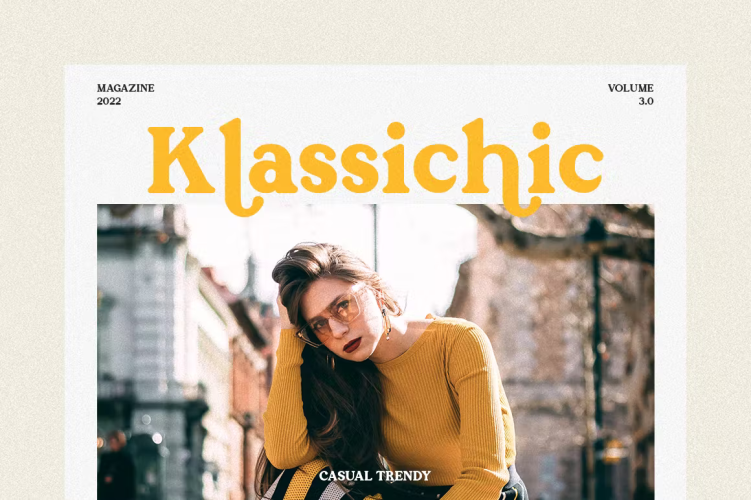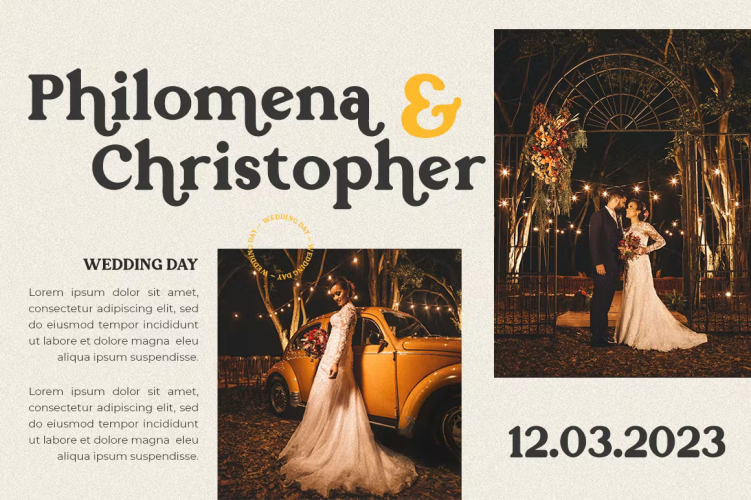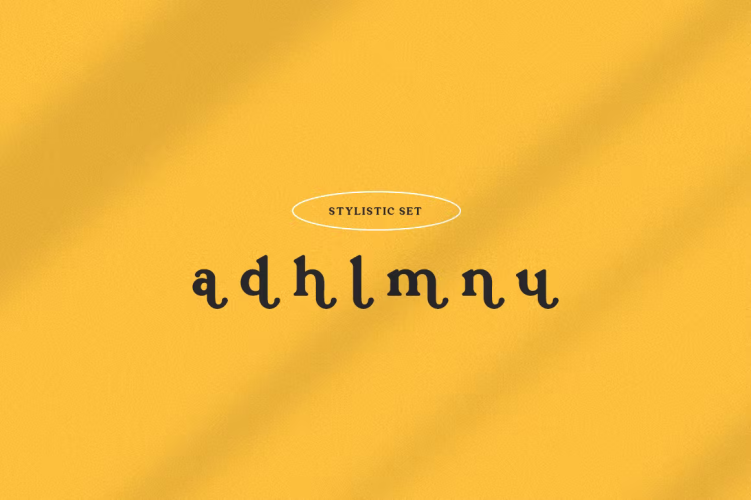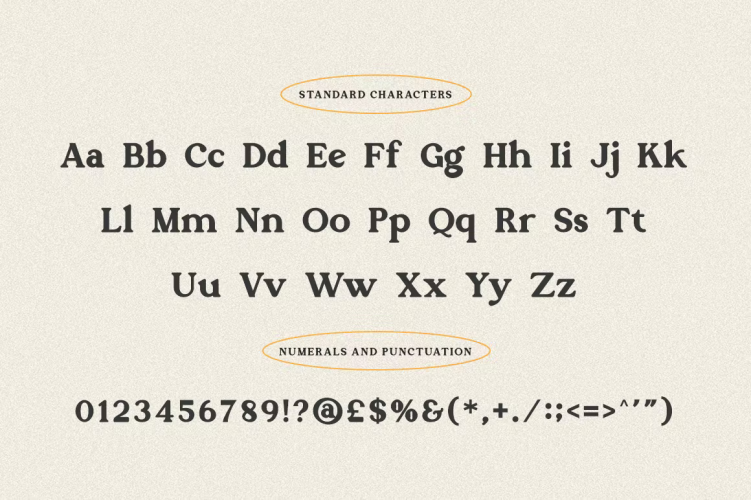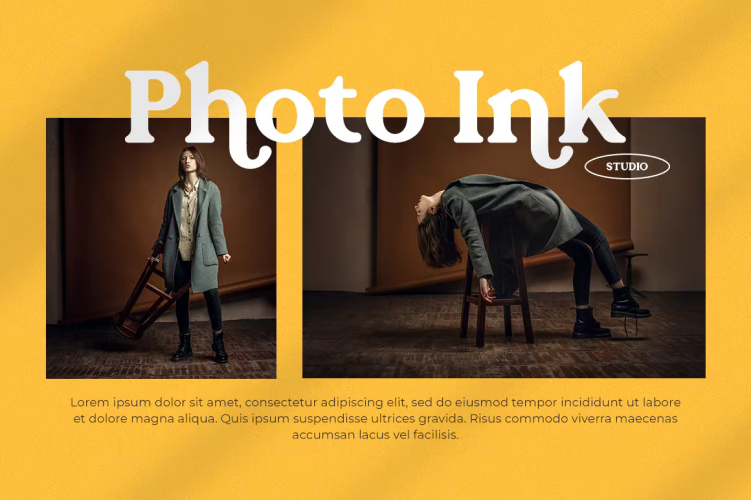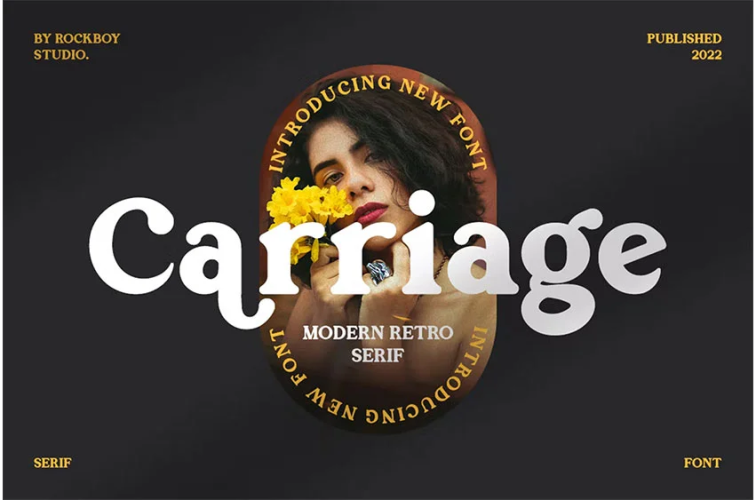
Carriage Font
Carriage Font is an elegant and distinct serif font. Suitable to a wide variety of designs due to its neat and simple style, this font has the potential to become your f…
Carriage Font is an elegant and distinct serif font. Suitable to a wide variety of designs due to its neat and simple style, this font has the potential to become your favorite go-to font, no matter the occasion!
Where Carriage Font works best
Reports, white papers and book interiors hold the eye longer when the text face has real serifs; Carriage Font keeps that rhythm without looking old-fashioned.
Food, spirits and cosmetics brands lean on serif wordmarks to suggest age and care. Carriage Font gives that signal at wordmark size.
Set Carriage Font for the body of an award or a diploma and keep the recipient name in a script; the pairing is what makes a document feel official.
What kind of work does Carriage Font suit?
It sits in the Serif Fonts group and reads as clean, elegant, professional, serif. That makes it a candidate wherever those qualities help: headings, packaging, social graphics and brand work. Set it at the size you plan to use before deciding.